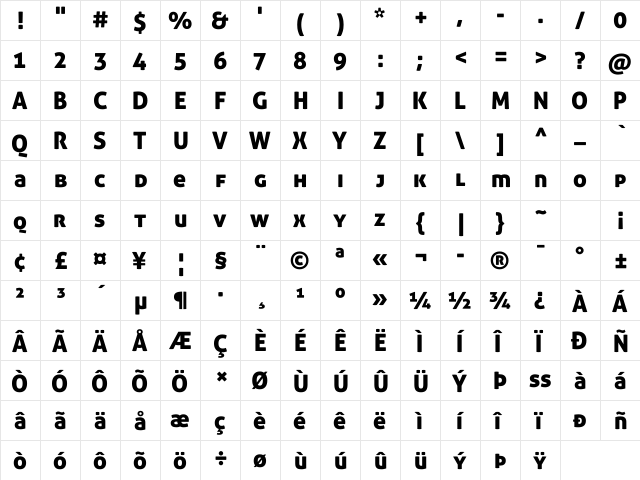
Aller Display Regular
| Foundry | Dalton Maag Ltd |
| Designer | Dalton Maag Ltd |
Design Context for Aller Display Typeface
Aller Display is built around its visual character rather than neutral utility — its distinctive forms are designed to make an impression at display sizes.